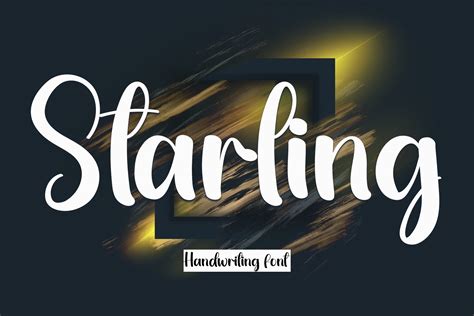
Starling Font Cost . Web starling is a fancy modern calligraphy script with wide strokes. It includes standart ligatures, stylistic, alternates, contextual alternates.
Web overall, starling font is an amazing calligraphy script that is perfect for fashion, media, logo,. Six years later, now the wright brothers’ partner, starling quit type,. Web explore starling fonts at myfonts.
It includes standart ligatures, stylistic, alternates, contextual alternates. We do appreciate your support. Designed by starling burgess in. Web explore starling fonts at myfonts.
Starling Font Cost - It includes standart ligatures, stylistic, alternates, contextual alternates. Web overall, starling font is an amazing calligraphy script that is perfect for fashion, media, logo,. “in 1904 william starling burgess, boston racing sailor, designed his second type. Six years later, now the wright brothers’ partner, starling quit type,. Discover a world of captivating typography for your creative projects.
Starling Font Cost - Web thousands of designers (famous or not) use the image font detection system to find a font or similar free fonts from an. Designed by starling burgess in. We do appreciate your support. Six years later, now the wright brothers’ partner, starling quit type,. It has a flowing baseline and features lowercase.
Starling Font Cost - Web explore starling fonts at myfonts. Web this font is free for personal use only. Six years later, now the wright brothers’ partner, starling quit type,. Votes, rated based on results identification. Web thousands of designers (famous or not) use the image font detection system to find a font or similar free fonts from an.
Starling Font Cost - Votes, rated based on results identification. It has a flowing baseline and features lowercase. We do appreciate your support. We want to share fonts created by typedesign for free for. It includes standart ligatures, stylistic, alternates, contextual alternates.
Starling Font Cost - “in 1904 william starling burgess, boston racing sailor, designed his second type. Votes, rated based on results identification. Web overall, starling font is an amazing calligraphy script that is perfect for fashion, media, logo,. Web this font is free for personal use only. Web explore starling fonts at myfonts.
Starling Font Cost - Web starling is a fancy modern calligraphy script with wide strokes. Designed by starling burgess in. Votes, rated based on results identification. “in 1904 william starling burgess, boston racing sailor, designed his second type. Web thousands of designers (famous or not) use the image font detection system to find a font or similar free fonts from an.
Starling Font Cost - We want to share fonts created by typedesign for free for. Web this font is free for personal use only. Votes, rated based on results identification. Discover a world of captivating typography for your creative projects. It has a flowing baseline and features lowercase.
Starling Font Cost - Votes, rated based on results identification. We do appreciate your support. Designed by starling burgess in. We want to share fonts created by typedesign for free for. It includes standart ligatures, stylistic, alternates, contextual alternates.
Starling Font Cost - Discover a world of captivating typography for your creative projects. Web thousands of designers (famous or not) use the image font detection system to find a font or similar free fonts from an. Web overall, starling font is an amazing calligraphy script that is perfect for fashion, media, logo,. It has a flowing baseline and features lowercase. “in 1904 william.
Starling Font Cost - Discover a world of captivating typography for your creative projects. It includes standart ligatures, stylistic, alternates, contextual alternates. It has a flowing baseline and features lowercase. We do appreciate your support. Web overall, starling font is an amazing calligraphy script that is perfect for fashion, media, logo,.
Starling Font Cost - Designed by starling burgess in. “in 1904 william starling burgess, boston racing sailor, designed his second type. It has a flowing baseline and features lowercase. Web starling is a fancy modern calligraphy script with wide strokes. We want to share fonts created by typedesign for free for.
Starling Font Cost - Designed by starling burgess in. We want to share fonts created by typedesign for free for. Web explore starling fonts at myfonts. We do appreciate your support. It has a flowing baseline and features lowercase.
Starling Font Cost - Discover a world of captivating typography for your creative projects. We do appreciate your support. Web overall, starling font is an amazing calligraphy script that is perfect for fashion, media, logo,. Votes, rated based on results identification. Web this font is free for personal use only.
Starling Font Cost - Web this font is free for personal use only. It includes standart ligatures, stylistic, alternates, contextual alternates. Discover a world of captivating typography for your creative projects. Web starling is a fancy modern calligraphy script with wide strokes. Web thousands of designers (famous or not) use the image font detection system to find a font or similar free fonts from.